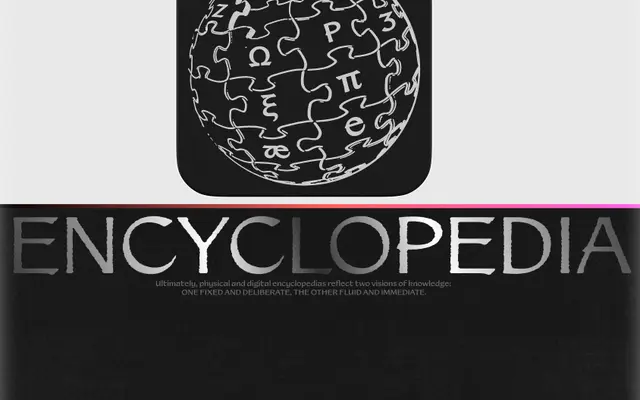
Pergamon
A calligraphic serif by Valerio Monopoli that reworks parchment nib contrast into a structured 16-style family, offered in Smooth and Rough sub-families.
Named after the city where parchment was invented, it takes the stroke contrast of a broad-nib pen and formalises it across eight weights from Extralight to Black in both a clean Smooth cut and a textured Rough variant. The family ships with a variable font and includes monotonic Greek support, making it one of the few typefaces in the Off Type catalogue to do so. Aimed at digital editorial work, it sits between expressive calligraphic display type and a more structured text face.
Pergamon draws on parchment nib contrast and gestural calligraphic strokes, placing it in the tradition of digital calligraphic serif types; its structured weight range and Greek support give it versatility beyond purely expressive scripts.